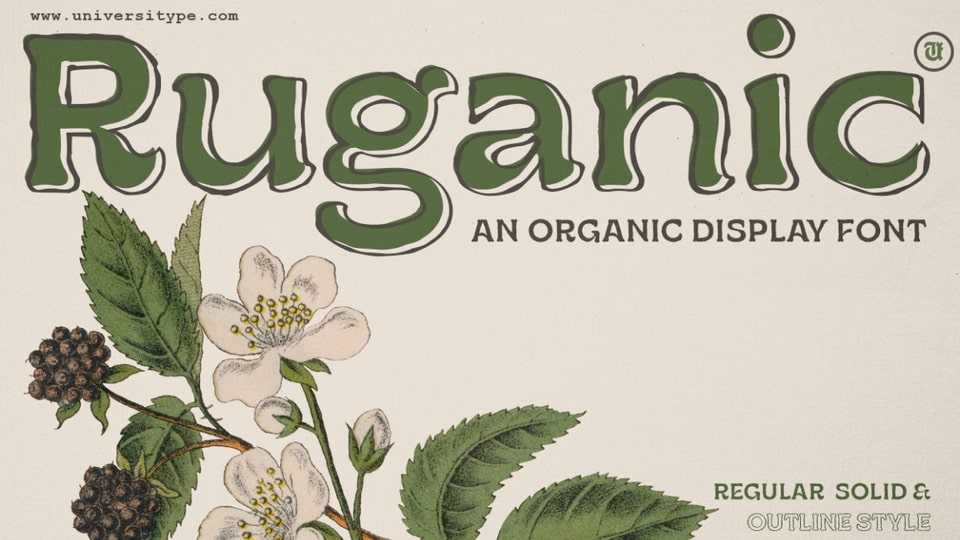
Download UT Ruganic font, a versatile and distinctive typeface that brings an organic, handcrafted aesthetic to any design project with its unique blend of rustic charm and modern readability.
Designer: Universitype Foundry